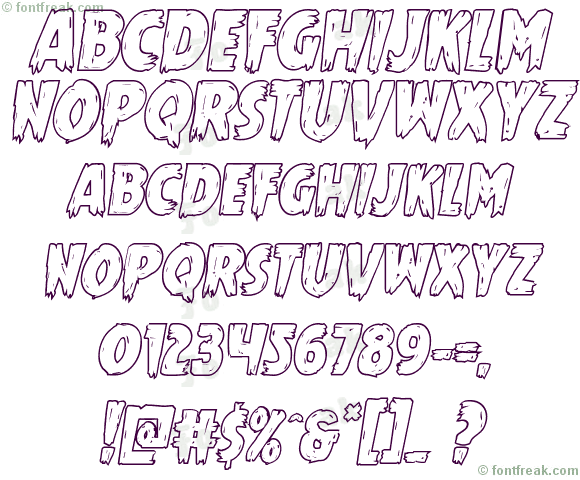
Mrs. Monster Outline
About Mrs. Monster Outline
Mrs. Monster Outline, designed by Daniel Zadorozny in 2013, is a captivating display font that combines a playful and quirky aesthetic with an outline style that makes it stand out. This decorative font is characterized by its bold, condensed letterforms, which feature uneven, jagged edges that evoke a sense of whimsy and fun. The stroke weight is consistent, providing a clear and engaging look, while the spacing allows for easy readability. Its unique outline design lends a three-dimensional quality, making it an eye-catching choice for various creative projects.
The versatility of the Mrs. Monster Outline font makes it suitable for a range of applications. It is perfect for creating vibrant movie posters, where its distinctive style can convey a sense of adventure or fantasy. Additionally, it works wonderfully for children's party invitations, capturing the playful spirit of youthful celebrations. Graphic designers can leverage this font for unique branding projects, especially for businesses in the entertainment or creative sectors. It is also an excellent choice for restaurant menus aiming for a casual, fun atmosphere, inviting diners to experience a lively dining environment.
The target audience for Mrs. Monster Outline includes graphic designers, small business owners, and content creators who seek to add a dash of creativity and charm to their work. This font appeals to those looking to make a statement with their designs.
What truly sets Mrs. Monster Outline apart is its ability to blend fun with functionality, making it an excellent choice for projects that require a touch of personality. Whether you are looking to capture attention or evoke a sense of joy, the Mrs. Monster Outline font free download is a must-have for your design toolkit.